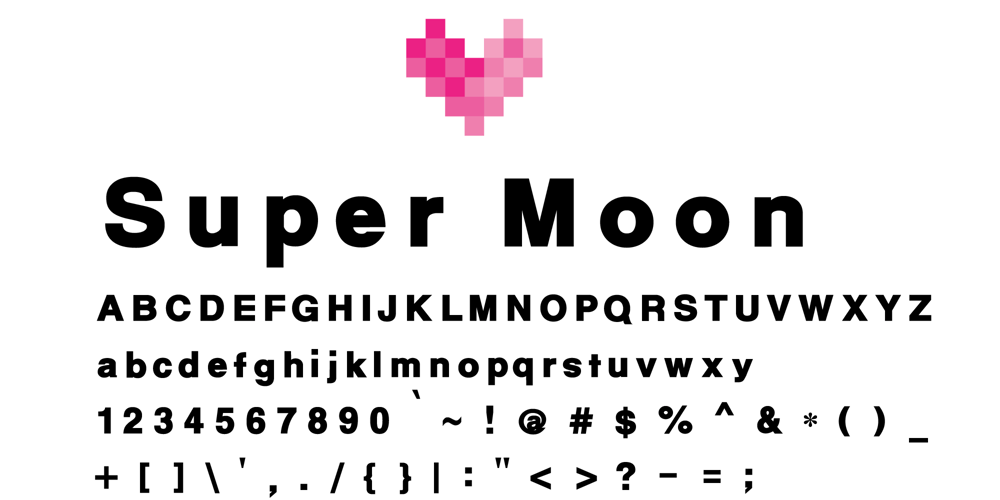
Super Moon Font Family was designed by Yona Yang and published by Yangtype. Super Moon contains 1 styles and family package options. It refers to the full moon that appears when the moon is at perigee, the point at which it is closest to the Earth. This text is quite simply humorous. Easy to understand the meaning of sentences.